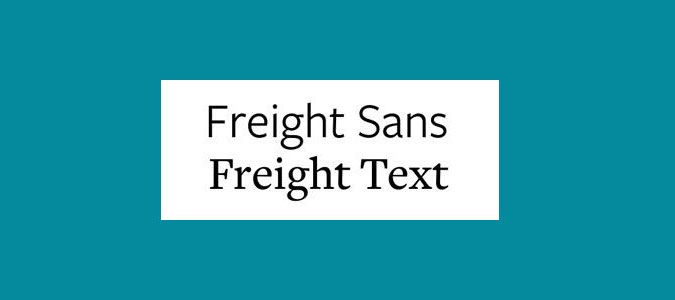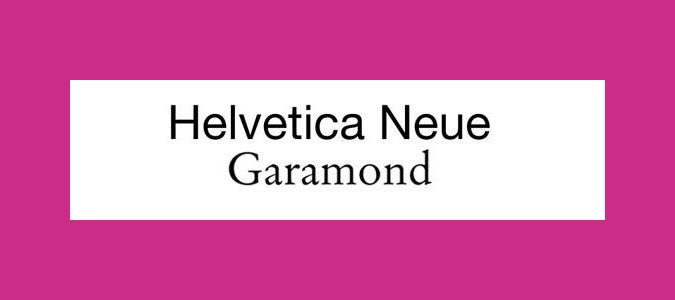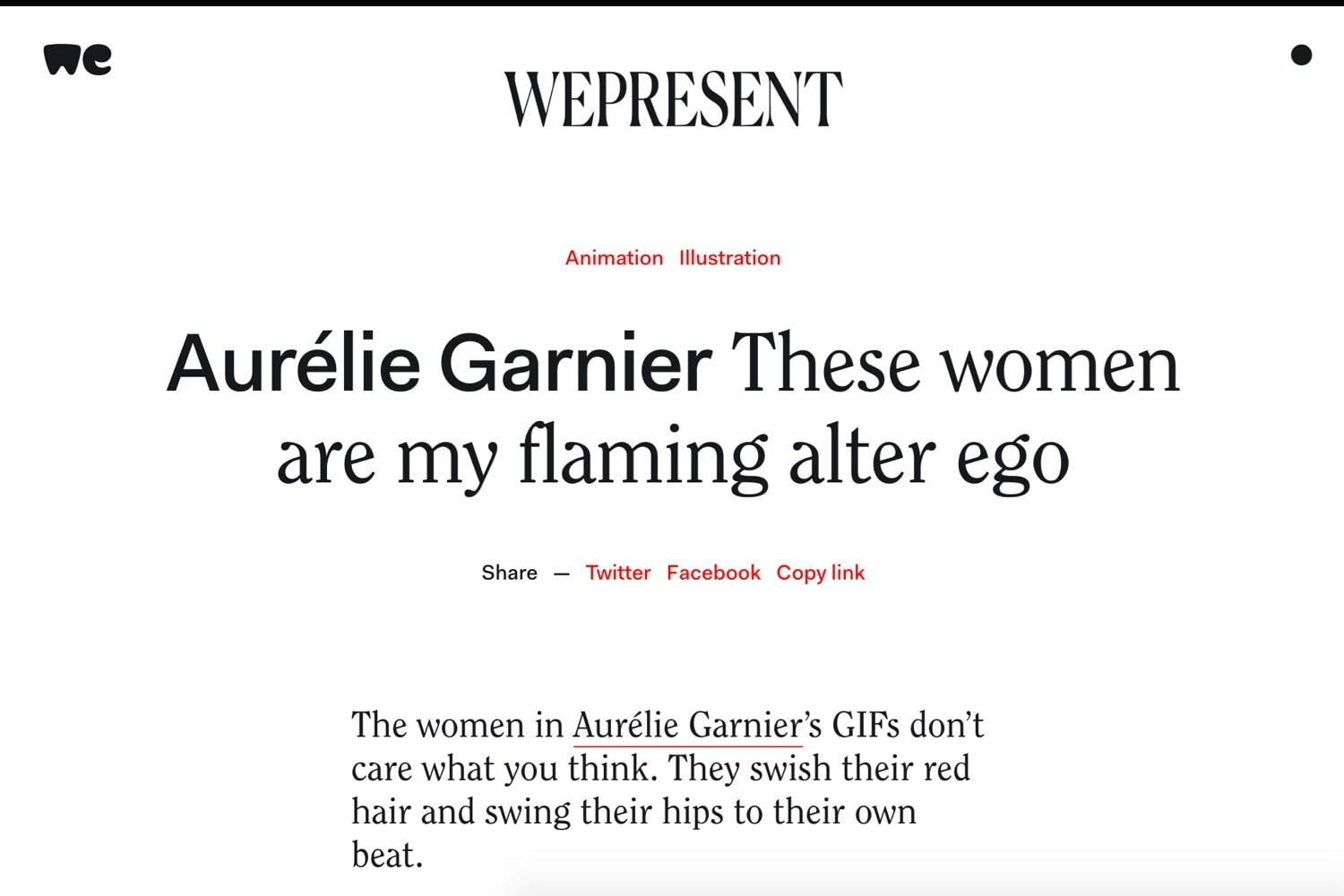
15+ San Serif Font Pairings Best Fonts. As a designer, the important thing is to establish a clear hierarchy. What makes a great serif to sans serif pairing or vice versa? The best selection of sans serif fonts for windows and macintosh. I often get questioned about good pairing between serif and sans serif typefaces. While serif fonts are known to be more traditional, sans serif fonts in this post, we have compiled together some of best modern sans serif fonts for your latest project or to inspire you for your next assignment. You can use these fonts to create custom styles. Traditionally, this involves pairing a serif with a sans serif. What should you look for? Archive of freely downloadable fonts. Typefaces will generally conflict if they are too similar: Google fonts now supports variable fonts. Sans serif fonts, as you might already know, are the fonts with no projecting lines at the ends. Demo donationware free free for personal use public domain, gpl, ofl shareware. Font name newest most downloads. It can be difficult sometimes to pair fonts that are not from the same category.
8 Fresh Font Pairings That Will Make Your Audience Trust You Immediately Hoot Design Co Web Design Branding And Marketing In Columbia Mo. What makes a great serif to sans serif pairing or vice versa? Demo donationware free free for personal use public domain, gpl, ofl shareware. Font name newest most downloads. Typefaces will generally conflict if they are too similar: Google fonts now supports variable fonts. The best selection of sans serif fonts for windows and macintosh. It can be difficult sometimes to pair fonts that are not from the same category. Traditionally, this involves pairing a serif with a sans serif. What should you look for? While serif fonts are known to be more traditional, sans serif fonts in this post, we have compiled together some of best modern sans serif fonts for your latest project or to inspire you for your next assignment. I often get questioned about good pairing between serif and sans serif typefaces. Sans serif fonts, as you might already know, are the fonts with no projecting lines at the ends. Archive of freely downloadable fonts. As a designer, the important thing is to establish a clear hierarchy. You can use these fonts to create custom styles.
Lovely Free Font Pairings For Personal And Commercial Projects. It can be difficult sometimes to pair fonts that are not from the same category. Sans serif fonts, as you might already know, are the fonts with no projecting lines at the ends. As a designer, the important thing is to establish a clear hierarchy. I often get questioned about good pairing between serif and sans serif typefaces. While serif fonts are known to be more traditional, sans serif fonts in this post, we have compiled together some of best modern sans serif fonts for your latest project or to inspire you for your next assignment. Demo donationware free free for personal use public domain, gpl, ofl shareware. Google fonts now supports variable fonts. The best selection of sans serif fonts for windows and macintosh. You can use these fonts to create custom styles. What makes a great serif to sans serif pairing or vice versa? Traditionally, this involves pairing a serif with a sans serif. What should you look for? Archive of freely downloadable fonts. Font name newest most downloads. Typefaces will generally conflict if they are too similar:
The Best Google Font Combinations To Try. I often get questioned about good pairing between serif and sans serif typefaces. Traditionally, this involves pairing a serif with a sans serif. The best selection of sans serif fonts for windows and macintosh. Archive of freely downloadable fonts. As a designer, the important thing is to establish a clear hierarchy. You can use these fonts to create custom styles. What makes a great serif to sans serif pairing or vice versa? It can be difficult sometimes to pair fonts that are not from the same category. Demo donationware free free for personal use public domain, gpl, ofl shareware. Google fonts now supports variable fonts. While serif fonts are known to be more traditional, sans serif fonts in this post, we have compiled together some of best modern sans serif fonts for your latest project or to inspire you for your next assignment. Font name newest most downloads. What should you look for? Sans serif fonts, as you might already know, are the fonts with no projecting lines at the ends. Typefaces will generally conflict if they are too similar:
50 Perfect Font Combinations To Kickstart Your Next Design. You can use these fonts to create custom styles. As a designer, the important thing is to establish a clear hierarchy. Font name newest most downloads. Traditionally, this involves pairing a serif with a sans serif. Demo donationware free free for personal use public domain, gpl, ofl shareware. It can be difficult sometimes to pair fonts that are not from the same category. The best selection of sans serif fonts for windows and macintosh. Typefaces will generally conflict if they are too similar: Archive of freely downloadable fonts. Sans serif fonts, as you might already know, are the fonts with no projecting lines at the ends. What should you look for? I often get questioned about good pairing between serif and sans serif typefaces. Google fonts now supports variable fonts. What makes a great serif to sans serif pairing or vice versa? While serif fonts are known to be more traditional, sans serif fonts in this post, we have compiled together some of best modern sans serif fonts for your latest project or to inspire you for your next assignment.
In this video, i will show you free font combinations of serif and sans serif fonts from google fonts.
Lovely Free Font Pairings For Personal And Commercial Projects. The best selection of sans serif fonts for windows and macintosh. Sans serif fonts, as you might already know, are the fonts with no projecting lines at the ends. Archive of freely downloadable fonts. You can use these fonts to create custom styles. Traditionally, this involves pairing a serif with a sans serif. What makes a great serif to sans serif pairing or vice versa? Demo donationware free free for personal use public domain, gpl, ofl shareware. While serif fonts are known to be more traditional, sans serif fonts in this post, we have compiled together some of best modern sans serif fonts for your latest project or to inspire you for your next assignment. It can be difficult sometimes to pair fonts that are not from the same category. Google fonts now supports variable fonts. What should you look for? Typefaces will generally conflict if they are too similar: Font name newest most downloads. I often get questioned about good pairing between serif and sans serif typefaces. As a designer, the important thing is to establish a clear hierarchy.
Typefaces will generally conflict if they are too similar:
Lovely Free Font Pairings For Personal And Commercial Projects. You can use these fonts to create custom styles. It can be difficult sometimes to pair fonts that are not from the same category. What should you look for? As a designer, the important thing is to establish a clear hierarchy. Google fonts now supports variable fonts. What makes a great serif to sans serif pairing or vice versa? Traditionally, this involves pairing a serif with a sans serif. Demo donationware free free for personal use public domain, gpl, ofl shareware. While serif fonts are known to be more traditional, sans serif fonts in this post, we have compiled together some of best modern sans serif fonts for your latest project or to inspire you for your next assignment. Archive of freely downloadable fonts. The best selection of sans serif fonts for windows and macintosh. Sans serif fonts, as you might already know, are the fonts with no projecting lines at the ends. Typefaces will generally conflict if they are too similar: I often get questioned about good pairing between serif and sans serif typefaces. Font name newest most downloads.
The best selection of sans serif fonts for windows and macintosh.
Finding your perfect font match is not impossible.
As a designer, the important thing is to establish a clear hierarchy. The best selection of sans serif fonts for windows and macintosh. What makes a great serif to sans serif pairing or vice versa? It was first created for use on the apple watch and has since gone on to replace helvetica neue as the system font on os x and ios. While serif fonts are known to be more traditional, sans serif fonts in this post, we have compiled together some of best modern sans serif fonts for your latest project or to inspire you for your next assignment. The most common examples are arial and helvetica. Even if that means we send you elsewhere to get them. Serif and sans serif font pairings. Typefaces will generally conflict if they are too similar: Read on to discover pro typography advice, as well as suggestions for font pairings to suit the media you're designing for.